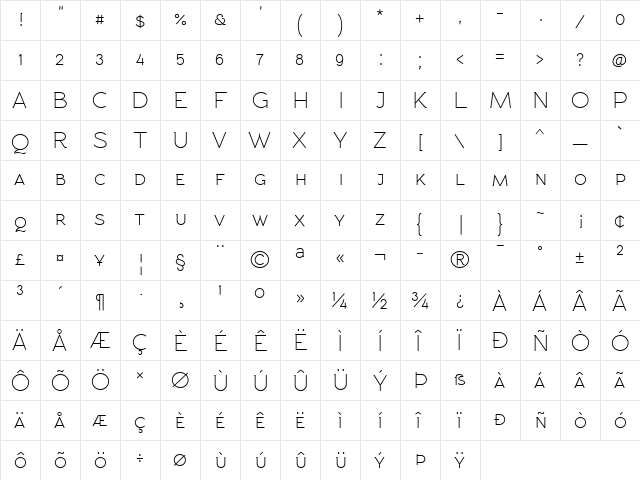
RawengulkPcs Regular
Design Context for RawengulkPcs Typeface
RawengulkPcs takes a measured approach to typography — its balanced proportions and neutral character make it a reliable workhorse for both digital and print work.
Pro Tip: Use RawengulkPcs in both headline and body roles to test its range before committing to a single application.